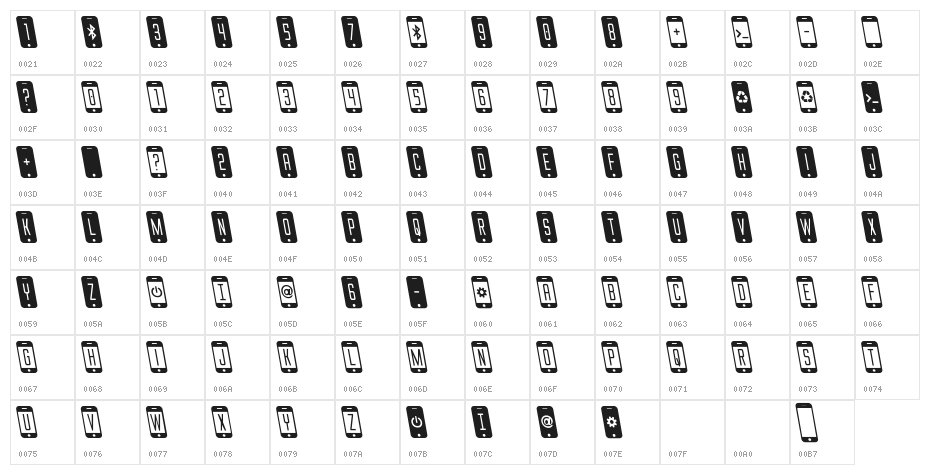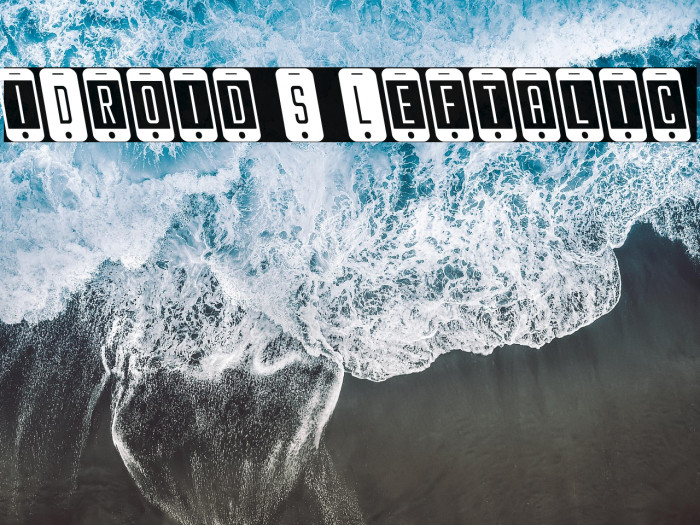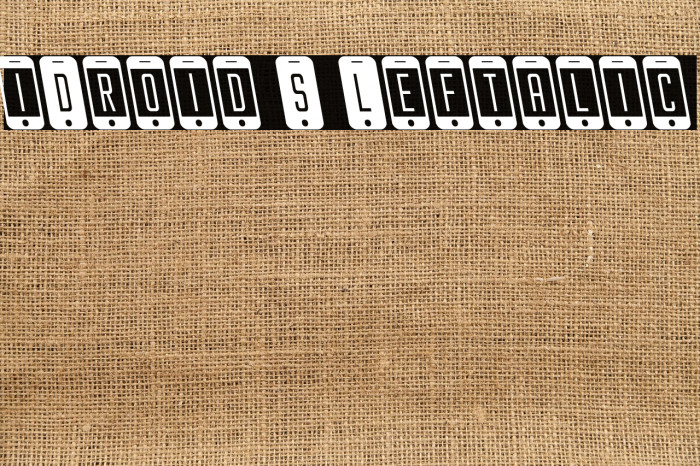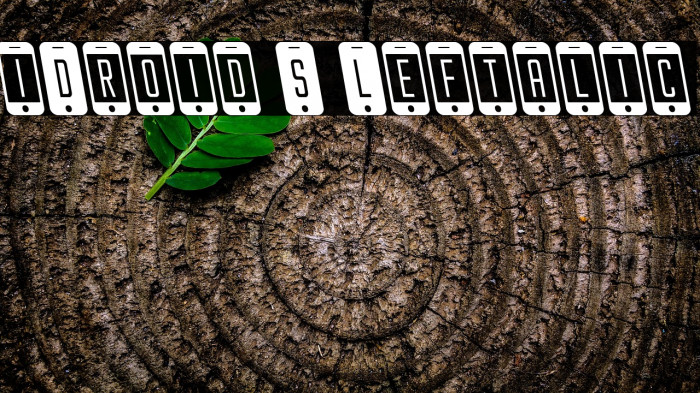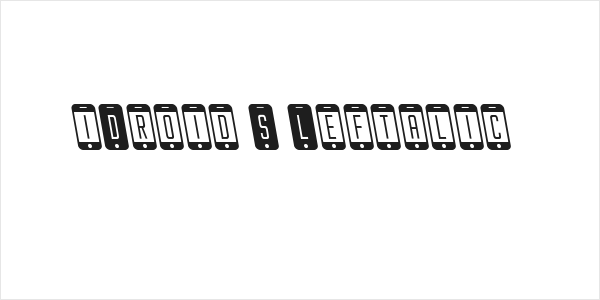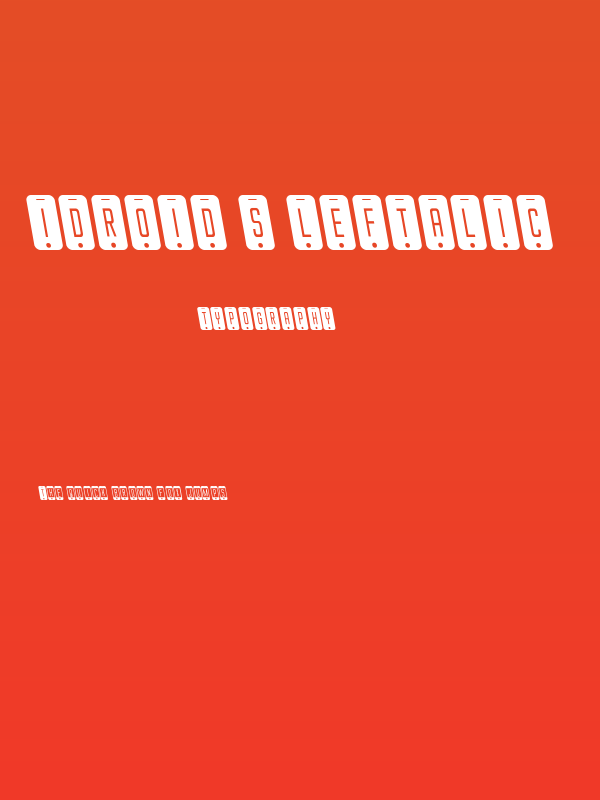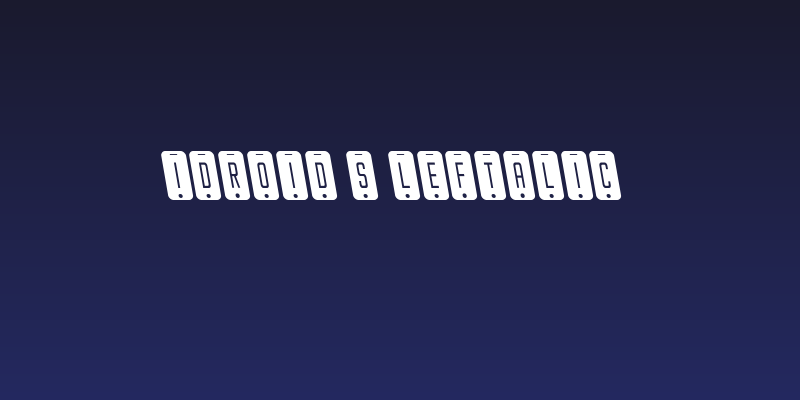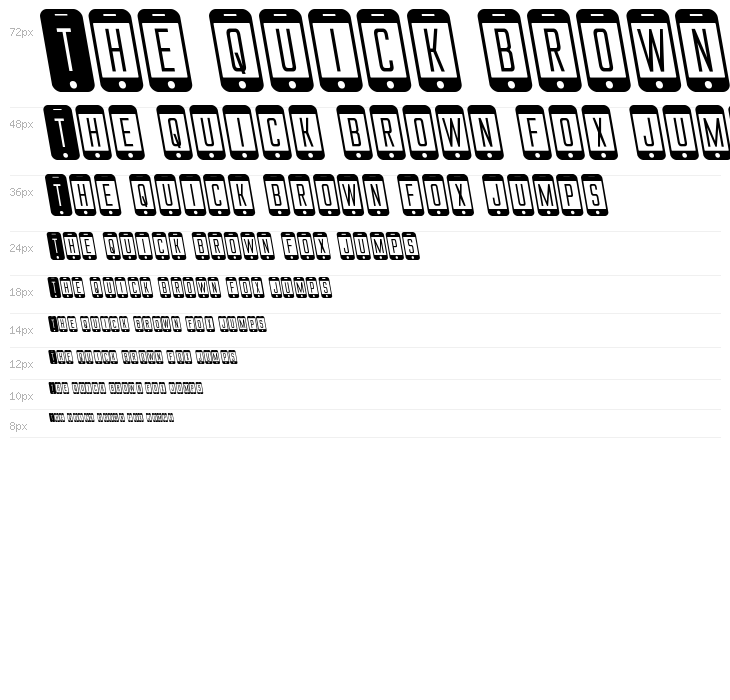
iDroid S Leftalic Font
iDroid S Leftalic Description
This font features a unique design where each character is encapsulated within a smartphone-like shape, complete with a home button at the bottom. The letters are bold and geometric, with a modern and tech-inspired aesthetic. The uppercase and lowercase letters maintain a consistent style, emphasizing a futuristic and digital theme. The numbers and special characters follow the same design principle, making the font cohesive and visually striking. This font is particularly suitable for projects that aim to convey a sense of technology, innovation, or digital communication.
| Use Case | Logos, Headlines, Digital Media |
| Proposed Projects | Ideal for tech-related branding, app design, digital marketing materials, and futuristic-themed projects. |